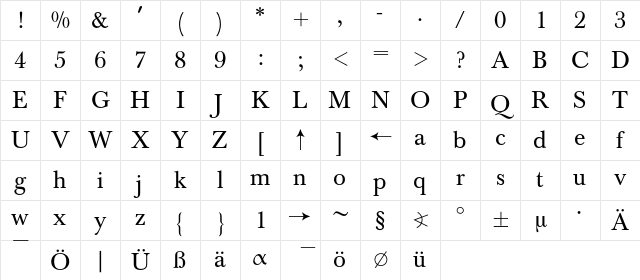
Complete Baskerville Regular + Math Pi BQ Regular glyph index. Displaying only characters natively supported by Baskerville Regular + Math Pi BQ Regular font.
Baskerville Regular + Math Pi BQ is a composed and adaptable typeface that performs quietly and consistently across a wide range of design contexts.